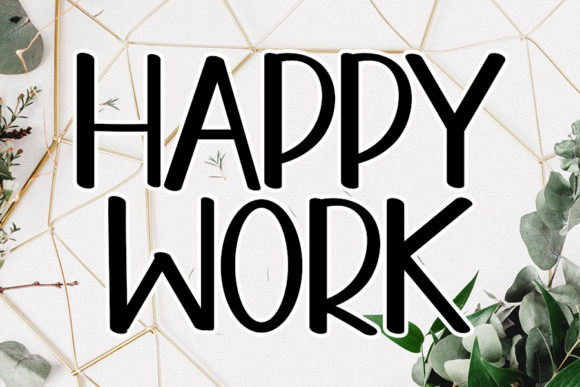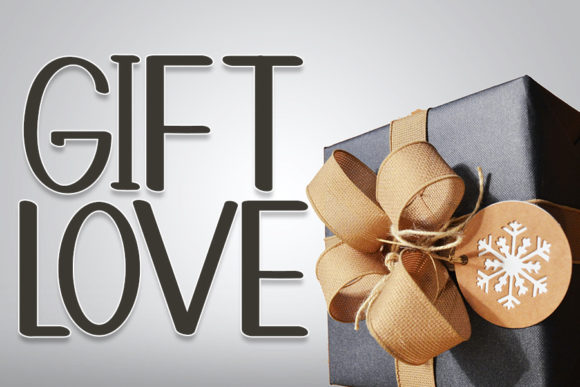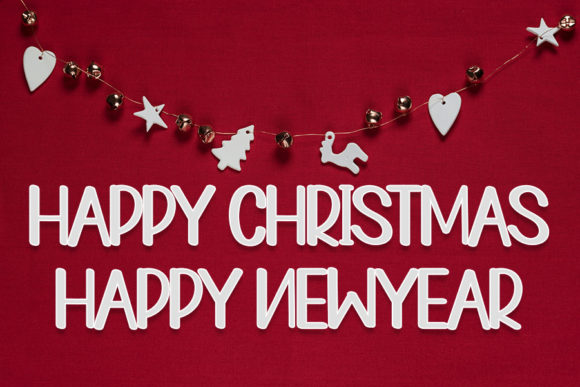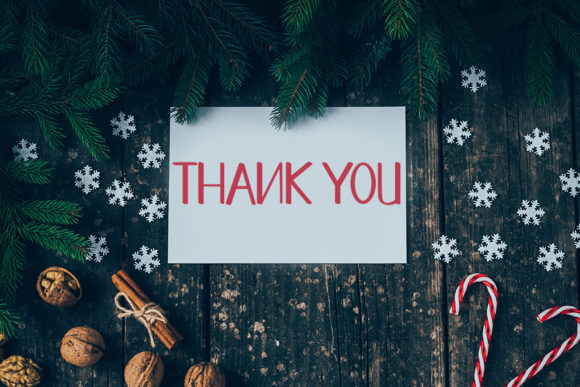
About Home Sunday Font
Home Sunday is a modern and stylish handwritten font that combines the elegance of handwritten lettering with the clean lines of a sans serif typeface. With its straight and narrow lines, this font exudes a sense of modernity and sophistication.
One of the key features of Home Sunday is its strong readability. The sans serif characteristics of this font contribute to its legibility, making it easy to read even at small sizes. The straight lines and uniform stroke widths enhance the clarity of each letter, ensuring that your message is conveyed clearly and effectively.
This font is a versatile choice for a wide range of design projects. Its modern and stylish appearance makes it suitable for various purposes, such as branding, logos, headlines, titles, and more. Whether you’re designing a sleek and contemporary website, creating professional-looking business materials, or crafting eye-catching social media graphics, Home Sunday adds a touch of elegance and sophistication to your designs.
The clean and minimalist aesthetic of Home Sunday makes it a great choice for projects that require a sleek and modern look. Its narrow lines and sans serif structure give it a refined and polished appearance. This font pairs well with other typefaces and can be used to create visual contrast or as the main focal point in your designs.
Additionally, Home Sunday’s versatility extends to different design contexts. It can be used in both digital and print materials, ensuring consistency across various mediums. From website headers and banners to business cards and brochures, Home Sunday adds a touch of modern elegance to any design.
In summary, Home Sunday is a modern and stylish handwritten font with straight and narrow lines. Its sans serif characteristics ensure strong readability, while its elegant and clean aesthetic makes it suitable for a variety of design projects. Whether you’re creating a sleek website or designing professional materials, Home Sunday adds a touch of sophistication and modernity to your designs.